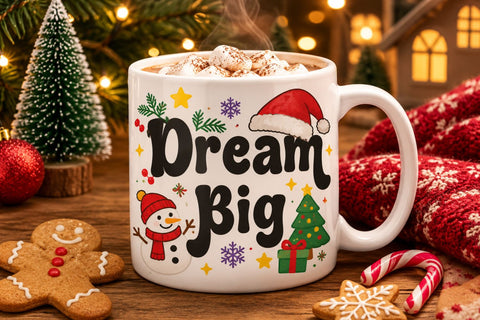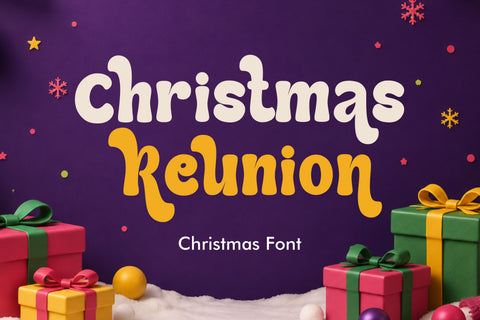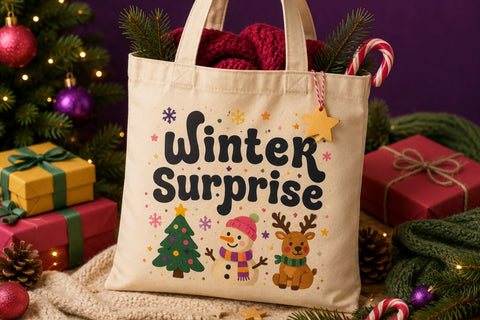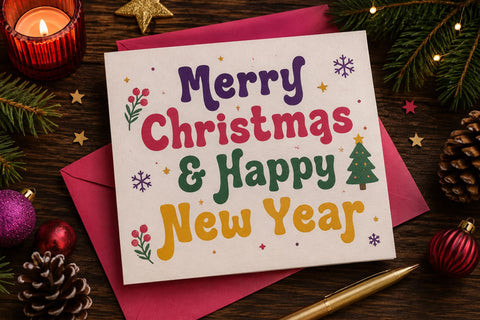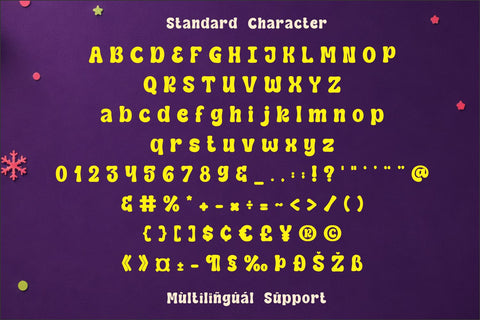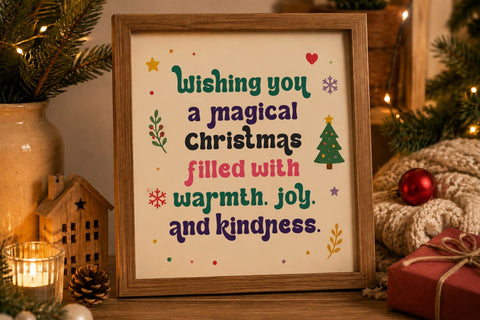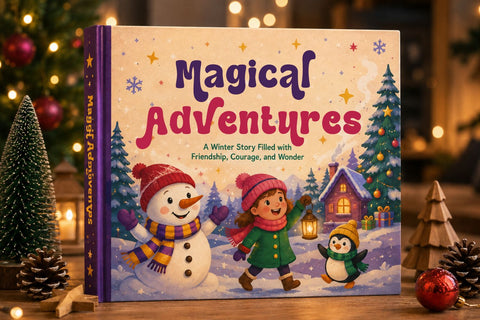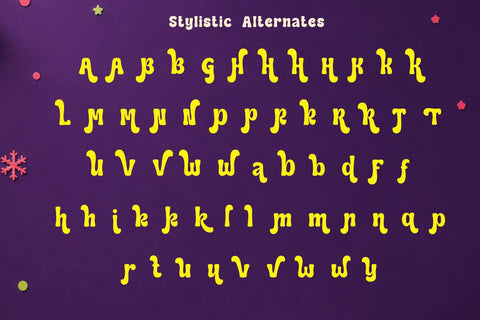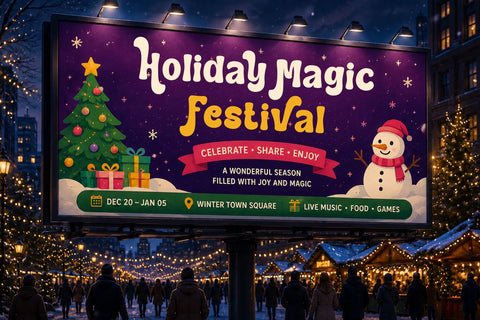
Christmas Reunion – Christmas Font
Christmas Reunion – Festive Christmas Font | Holiday Font
Christmas Reunion is a warm and joyful Christmas font designed to capture the magic of gathering together during the holiday season. With its charming decorative letterforms and cheerful festive personality, this Christmas typeface brings a cozy and celebratory feeling to seasonal designs.
Inspired by Christmas gatherings, family celebrations, holiday decorations, sparkling lights, wrapped gifts, Christmas trees, and joyful reunions, Christmas Reunion creates typography that feels welcoming, nostalgic, and full of holiday spirit.
Its playful yet elegant character makes it a versatile choice for creating memorable Christmas designs, from greeting cards and invitations to gift packaging, decorations, social media graphics, and festive crafts.
Christmas Font for Holiday Designs
Christmas Reunion is perfect for a variety of Christmas and holiday projects, including:
• Christmas Greeting Cards
• Christmas Invitations
• Christmas Party Invitations
• Christmas Gift Tags
• Christmas Labels
• Christmas Quotes
• Christmas Posters
• Christmas Signs
• Christmas Ornaments
• Holiday Decorations
• Christmas Packaging
• Gift Wrapping Designs
• Christmas Printables
• Holiday Social Media Graphics
• Winter-Themed Artwork
Whether you’re creating a heartfelt Christmas message or a cheerful holiday announcement, Christmas Reunion adds warmth and festive character to your typography.
Christmas Cricut Font for DIY Crafts
Christmas Reunion also works beautifully as a Christmas Cricut font for creative DIY and handmade projects. Its decorative style is ideal for creating personalized Christmas decorations, gifts, apparel, and seasonal crafts.
Perfect for:
• Cricut Christmas Projects
• Christmas SVG Designs
• Silhouette Projects
• Christmas Stickers
• Christmas Decals
• Christmas T-Shirt Designs
• Christmas Mugs & Tumblers
• Christmas Ornaments
• Christmas Tote Bags
• Sublimation Designs
• Scrapbooking
• DIY Christmas Crafts
• Handmade Holiday Decorations
• Personalized Christmas Gifts
Create festive designs for cutting machines, printable artwork, sublimation projects, stickers, apparel, and handmade Christmas decorations.
A Warm & Joyful Christmas Typeface
The personality of Christmas Reunion is inspired by the feeling of coming together during Christmas. Its friendly letterforms can help transform simple words into warm and memorable holiday typography.
Use this Christmas font for Christmas cards, family reunion invitations, holiday parties, gift tags, festive packaging, Christmas decorations, seasonal branding, apparel, mugs, stickers, and digital content.
Bring Everyone Together with Christmas Typography
From Christmas cards and family reunion invitations to gift tags, ornaments, Cricut crafts, holiday packaging, and festive decorations, Christmas Reunion adds a heartfelt seasonal touch to every project.
If you’re looking for a Christmas font that feels warm, cheerful, nostalgic, and welcoming, Christmas Reunion is a beautiful choice for celebrating the joy of being together.
Create meaningful holiday memories with Christmas Reunion – a festive Christmas font made for joyful gatherings and magical Christmas moments. 🎄✨🎁